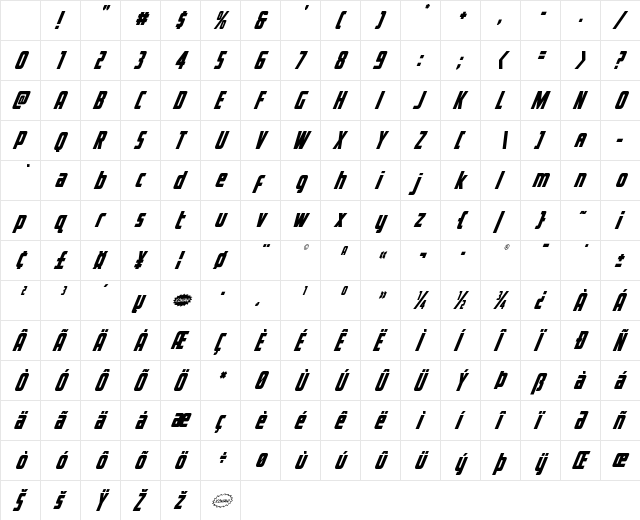
Complete Voyage Fantastique Condensed glyph index. Displaying only characters natively supported by Voyage Fantastique Condensed font.
Voyage Fantastique is a composed and adaptable typeface that performs quietly and consistently across a wide range of design contexts. Its narrow stance lets it pack a punch even in space-constrained designs.